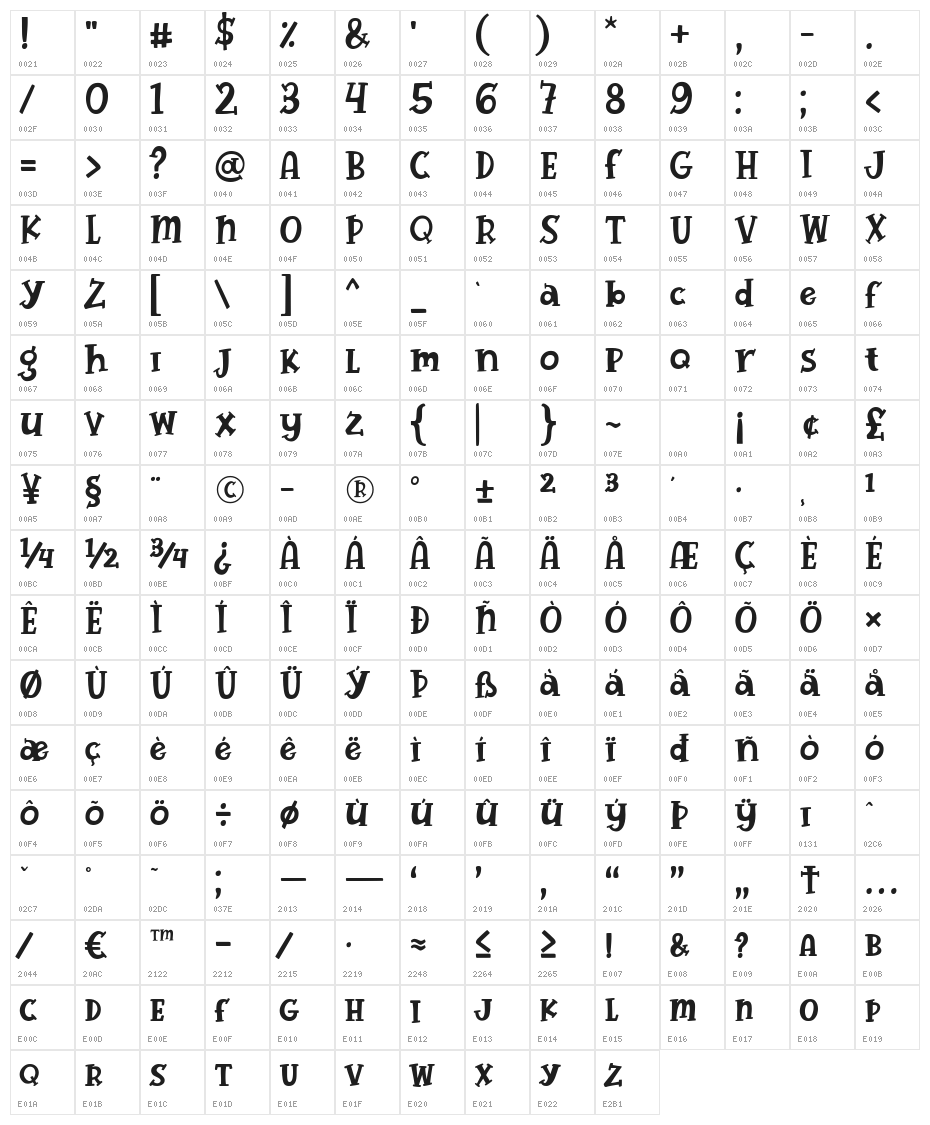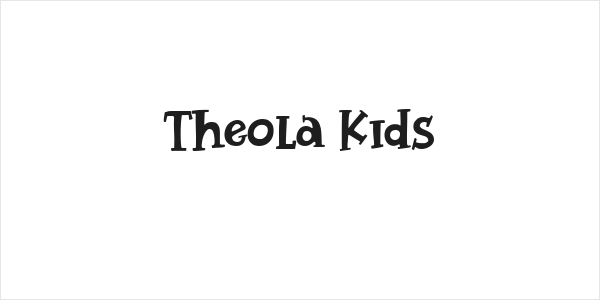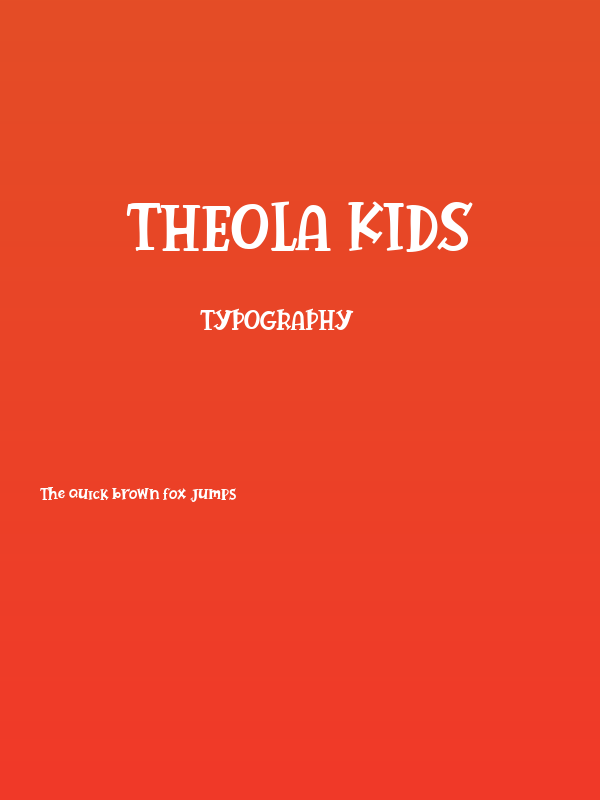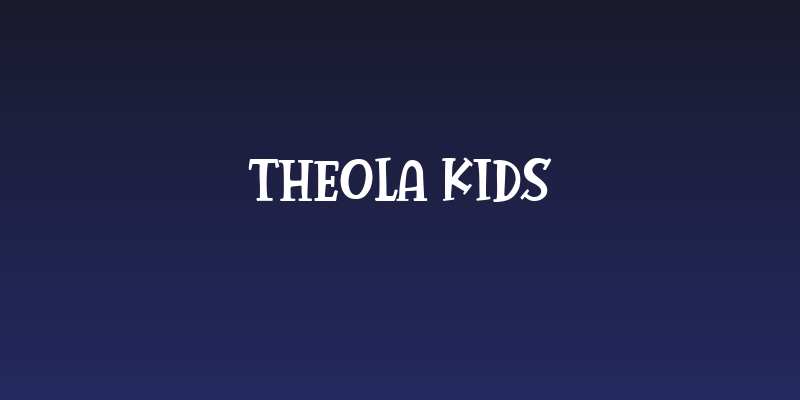
Theola Kids Font
Theola Kids Description
This playful and whimsical font features bold, rounded characters with a hand-drawn feel. The letters have a slightly uneven baseline, adding to the casual and fun aesthetic. The strokes are thick and consistent, providing a strong visual impact. The font includes both uppercase and lowercase letters, numerals, and a variety of special characters, making it versatile for different uses. Its unique style is reminiscent of children's handwriting, making it ideal for projects aimed at younger audiences or those seeking a lighthearted and approachable look.
| Proposed Projects | Ideal for children's books, educational materials, playful branding, and creative posters. |